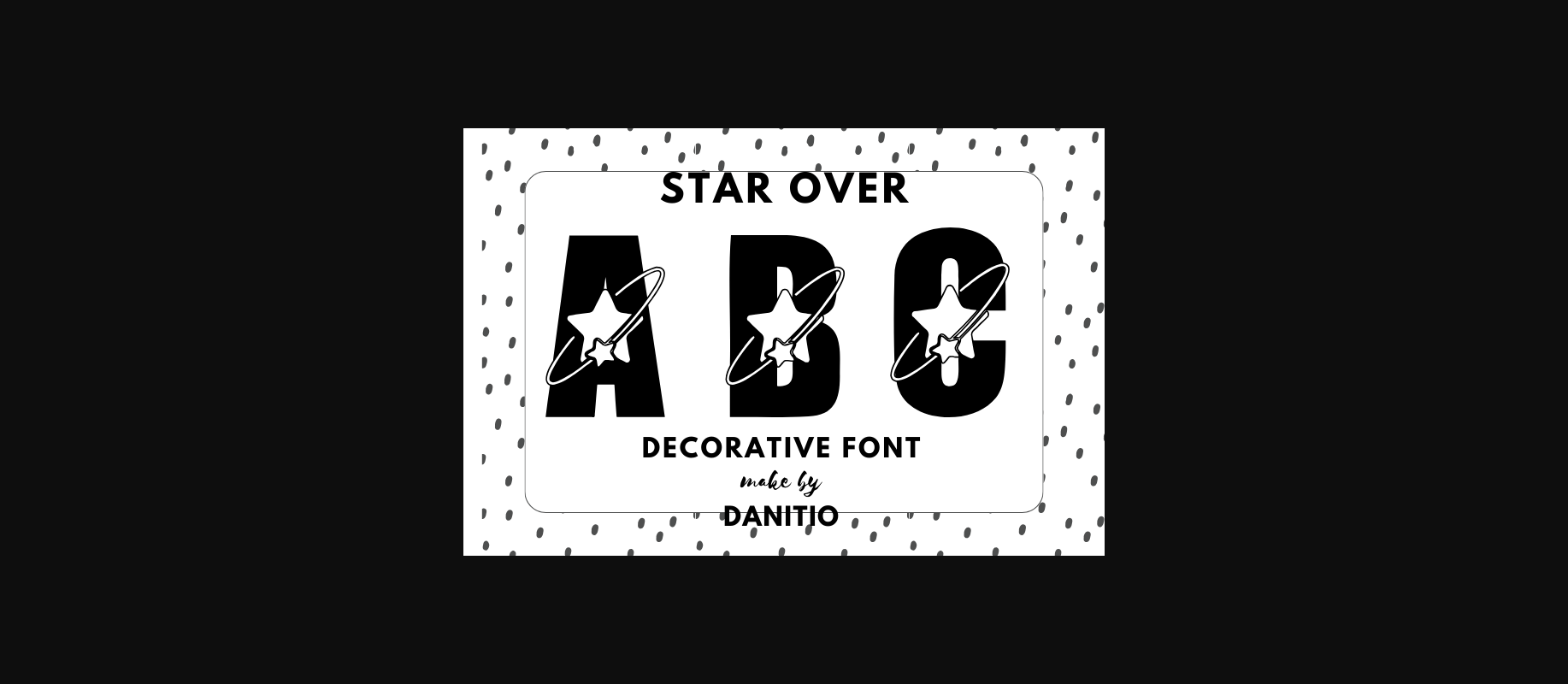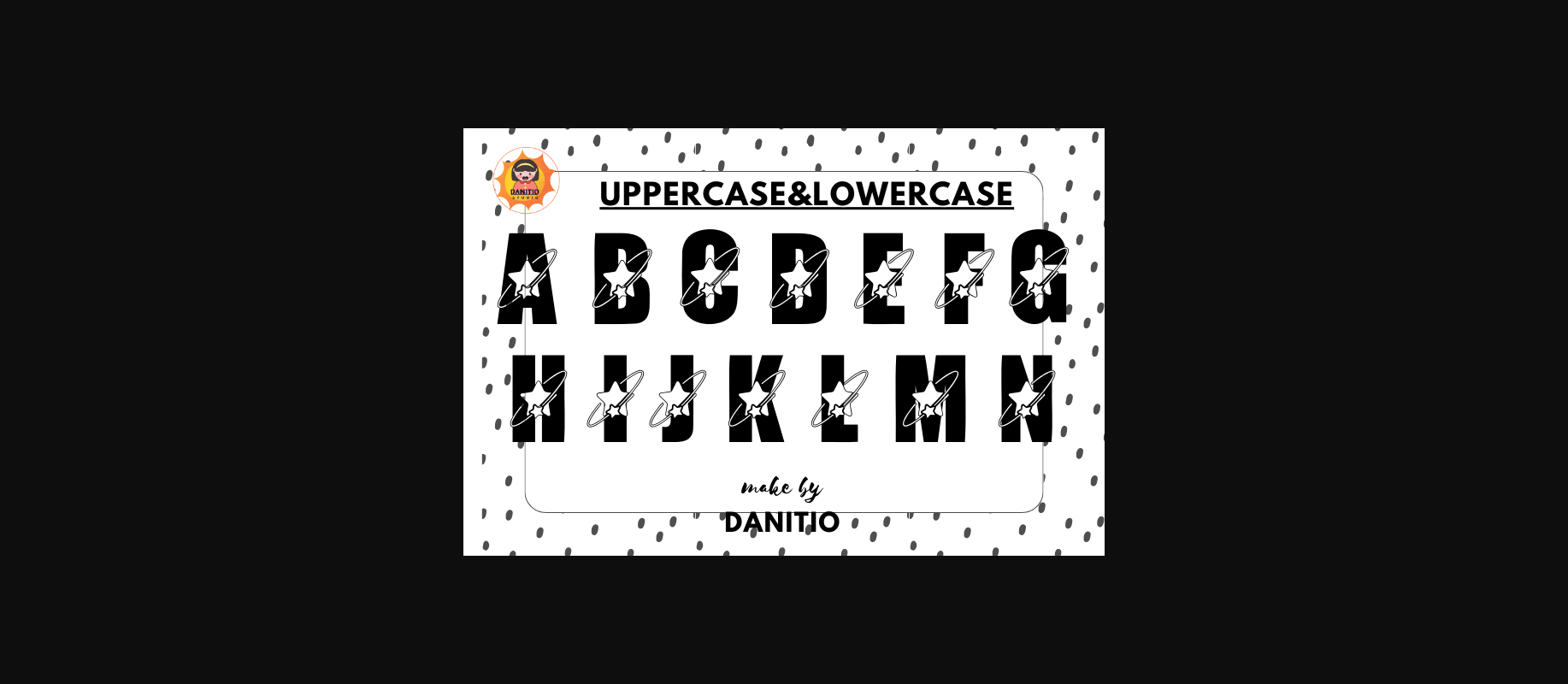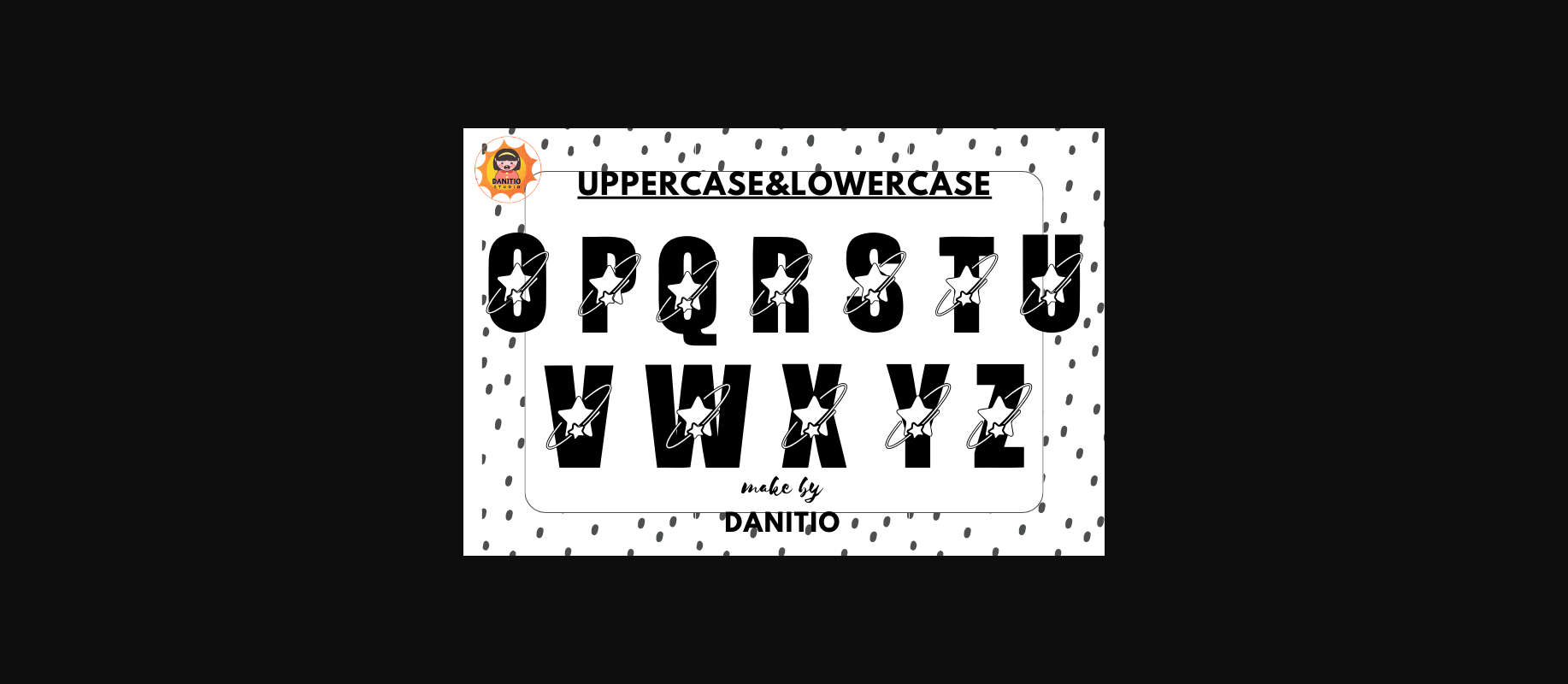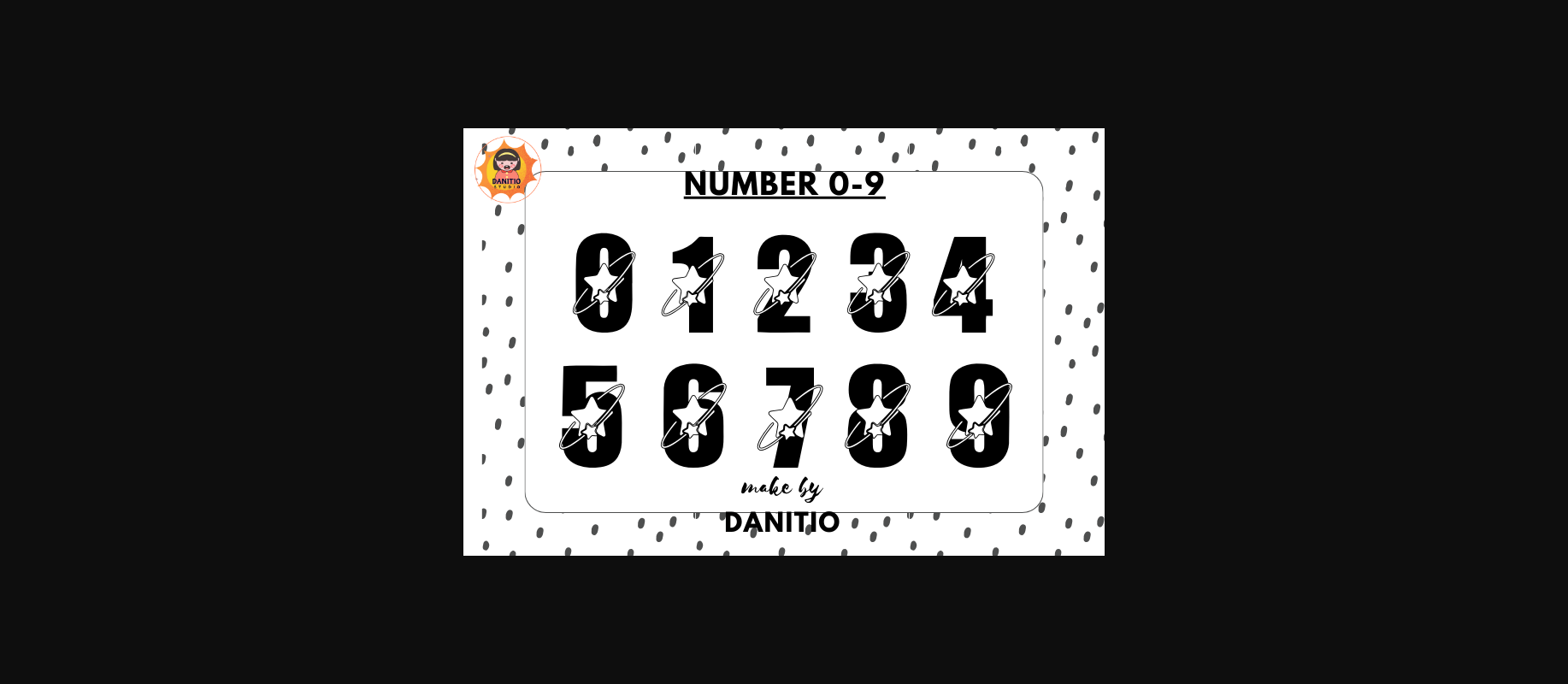
About Star over Font
Star Over is a decorative font that combines letters decorated with cute flying stars to make it look unusual and cool at the same time. This style emphasizes cuteness in every design. Great for birthday cards, t-shirts, mugs, tote bags, and other items. that you deem appropriate Hope you enjoy my fonts.